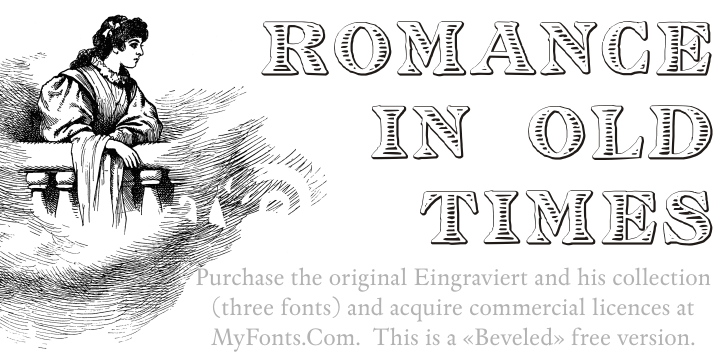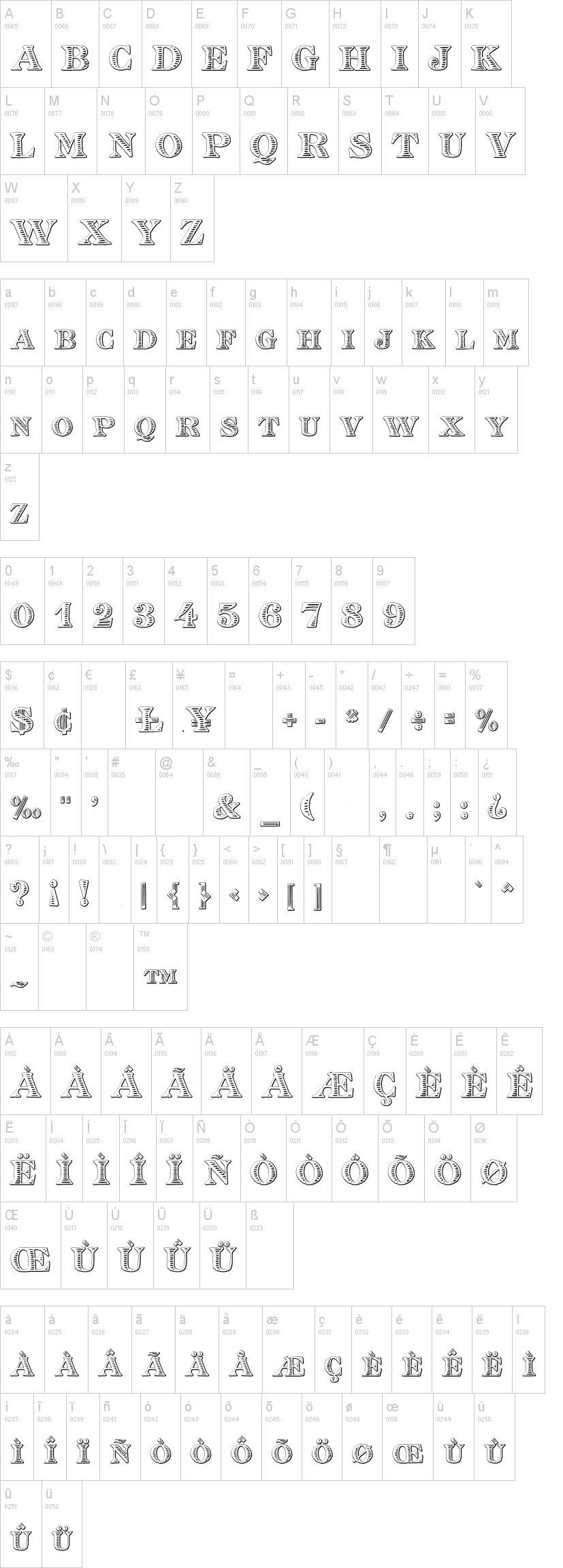
Note of the authorEingraviert Beveled, by Intellecta Design
Eingraviert Beveled is a beveled free version. To purchase the original font and its family of fonts (three differente fonts) and to acquire licences, please, visit: http://new.myfonts.com/fonts/intellecta/eingraviert/